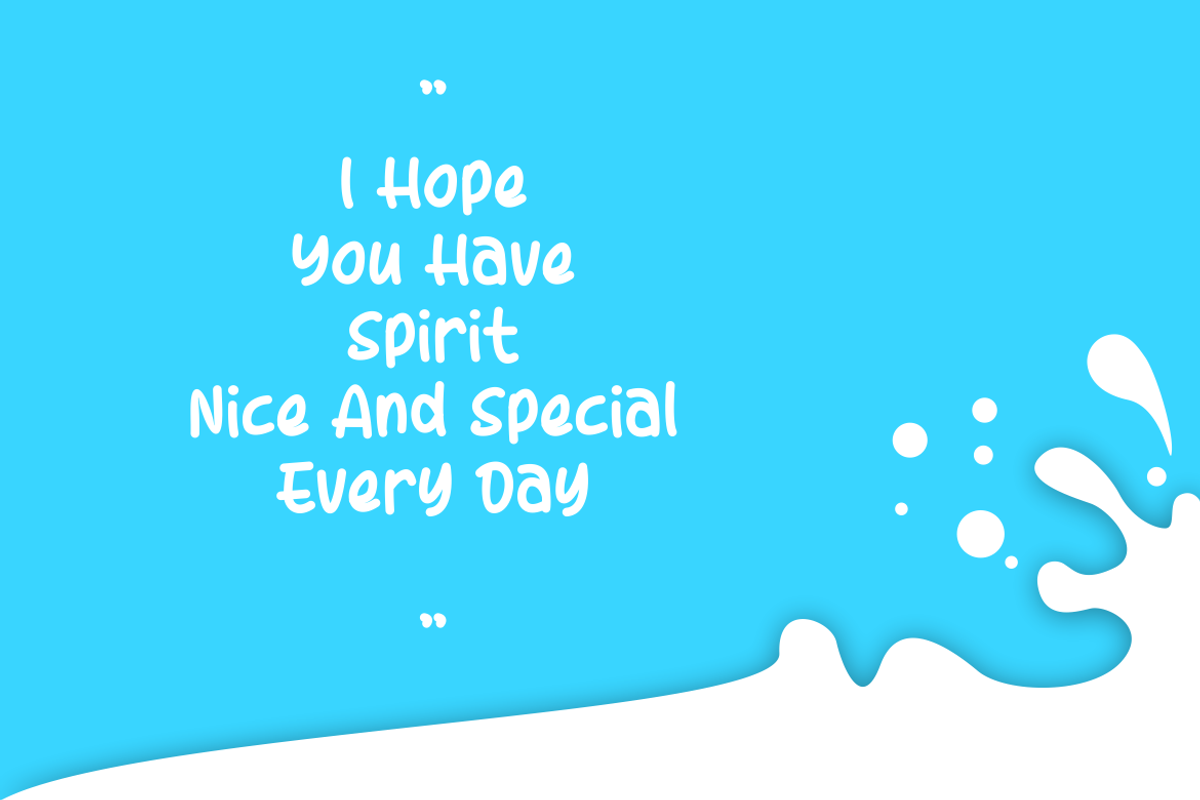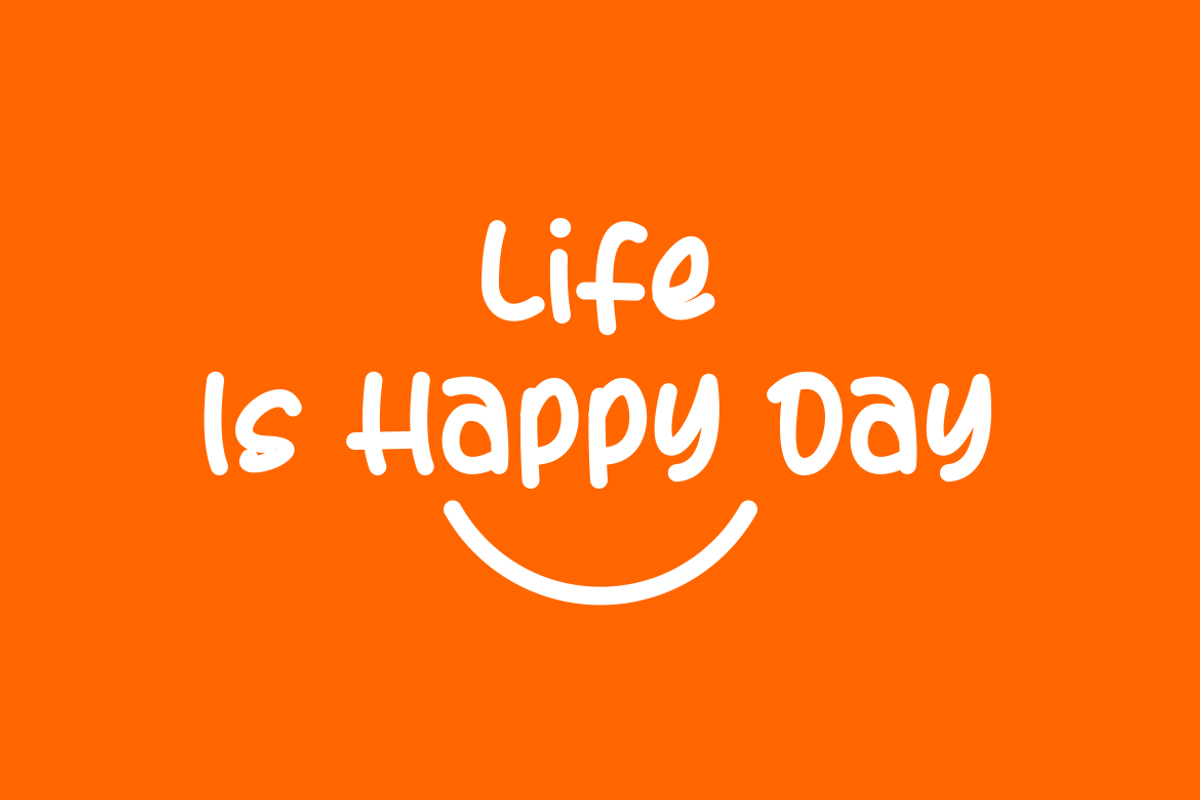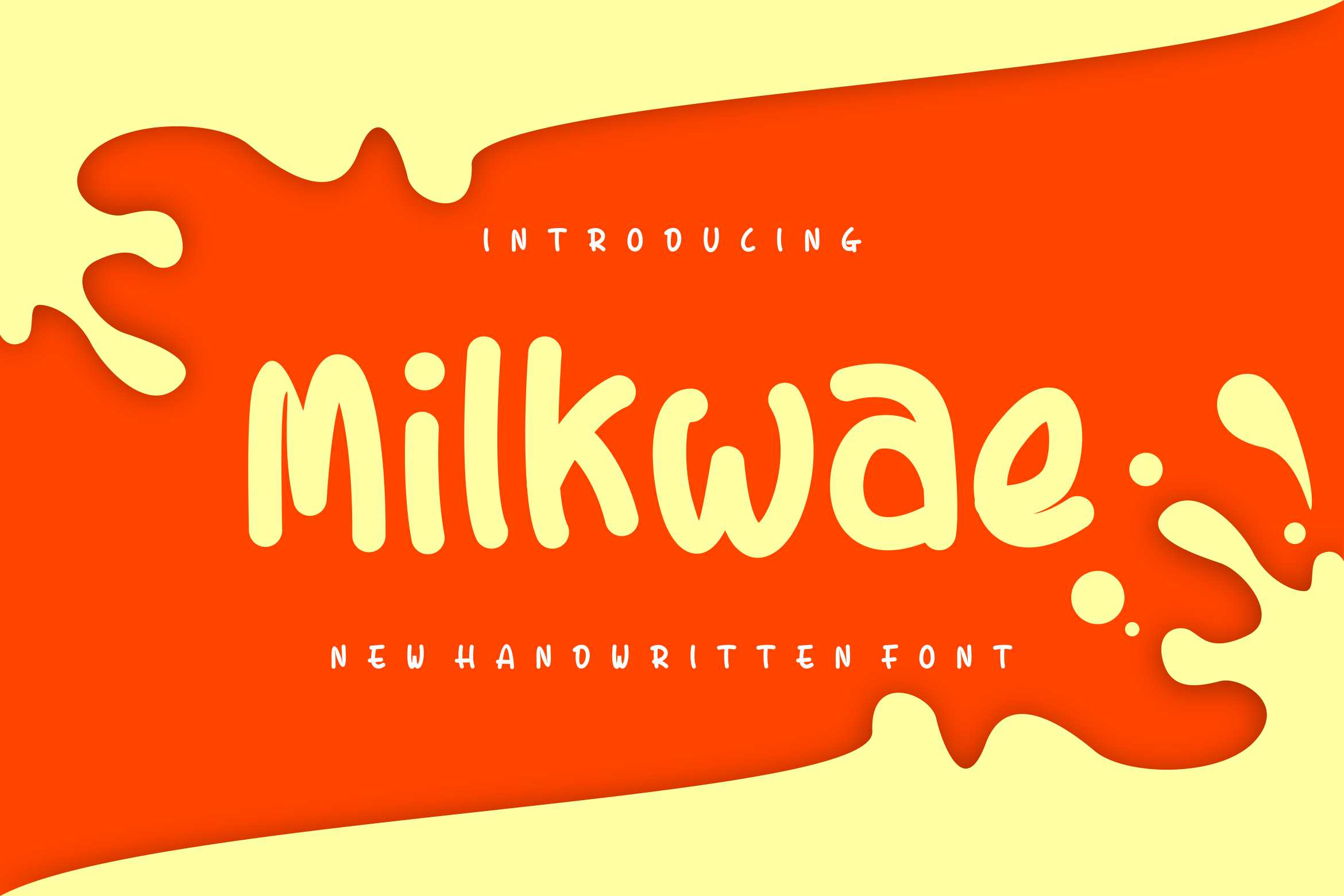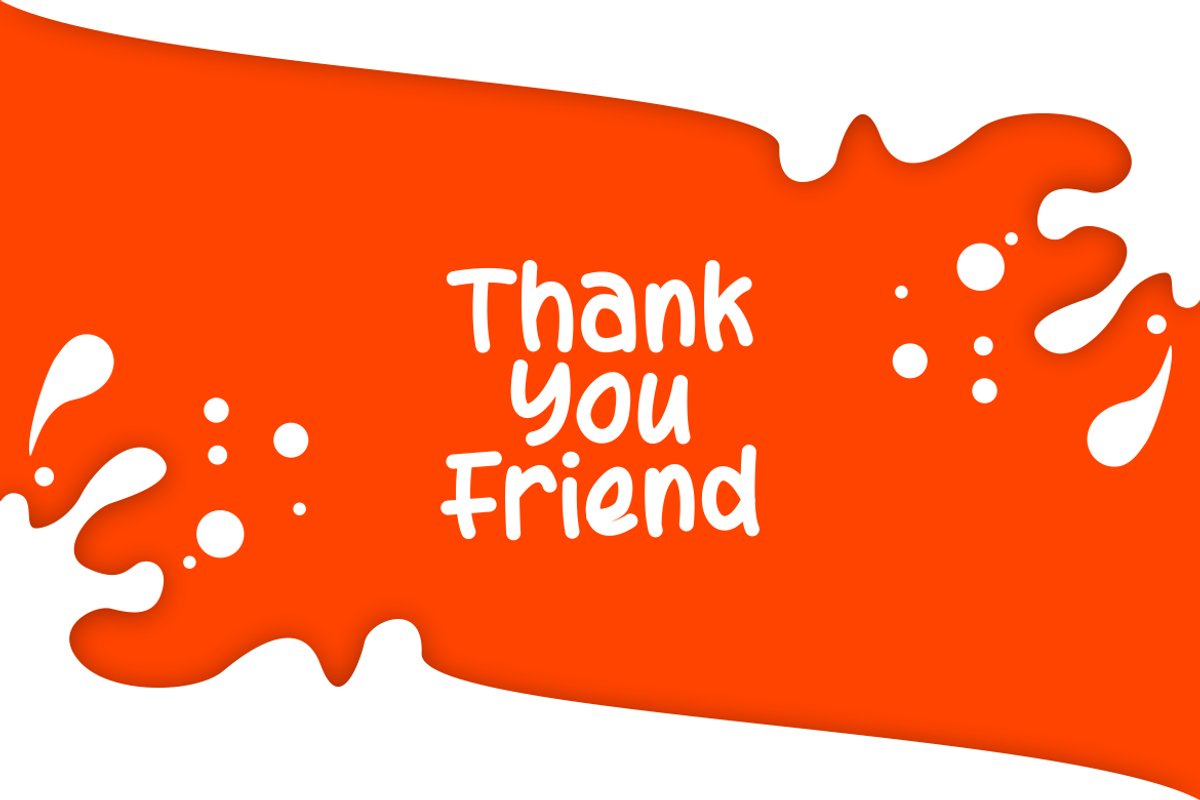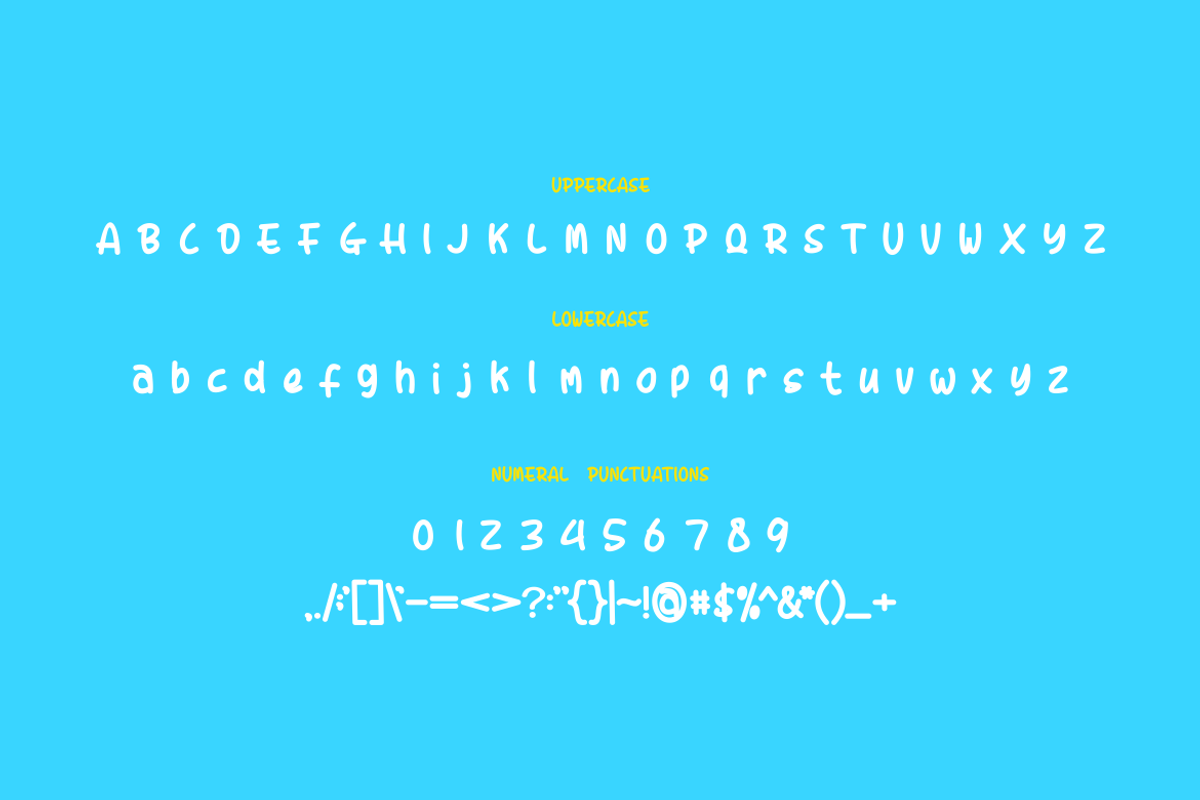
Milkwae - Font
- Modern Font is a bold and authentic display font. The font is suitable for any branding project like logo, t-shirt printing,, and many more. outstanding in a wide range of contexts.